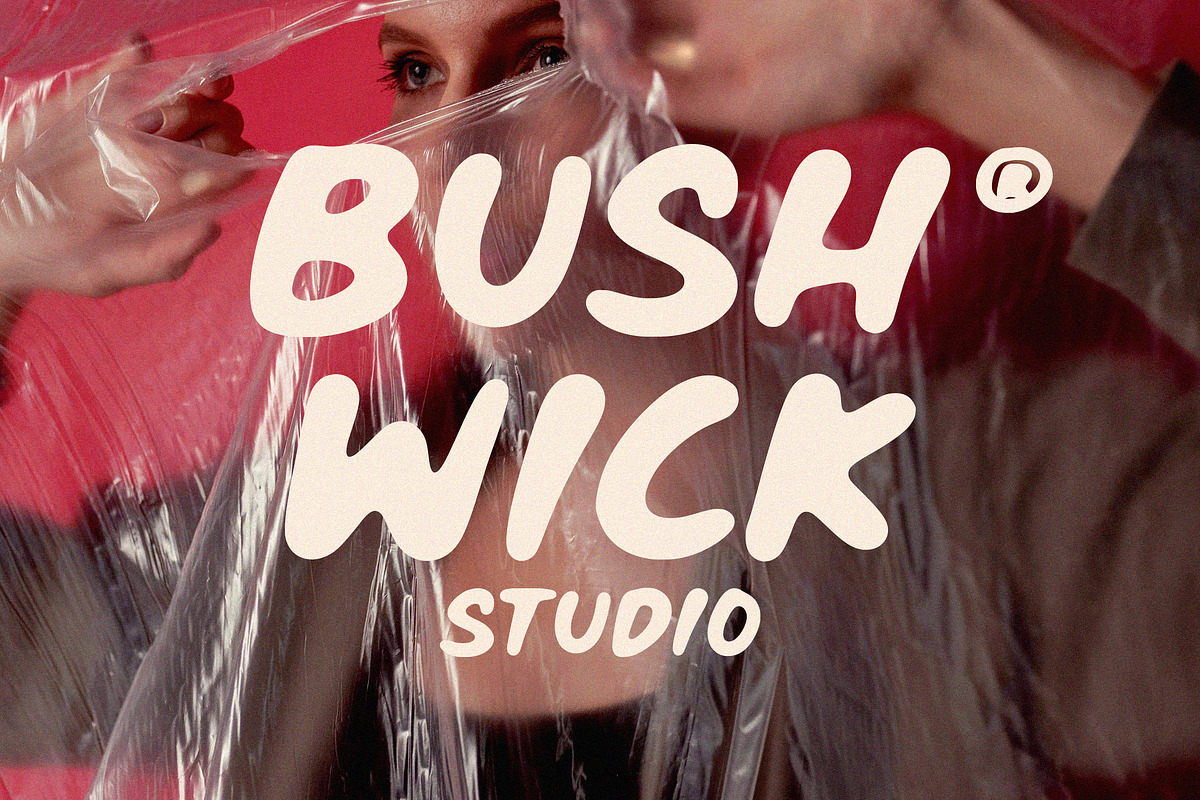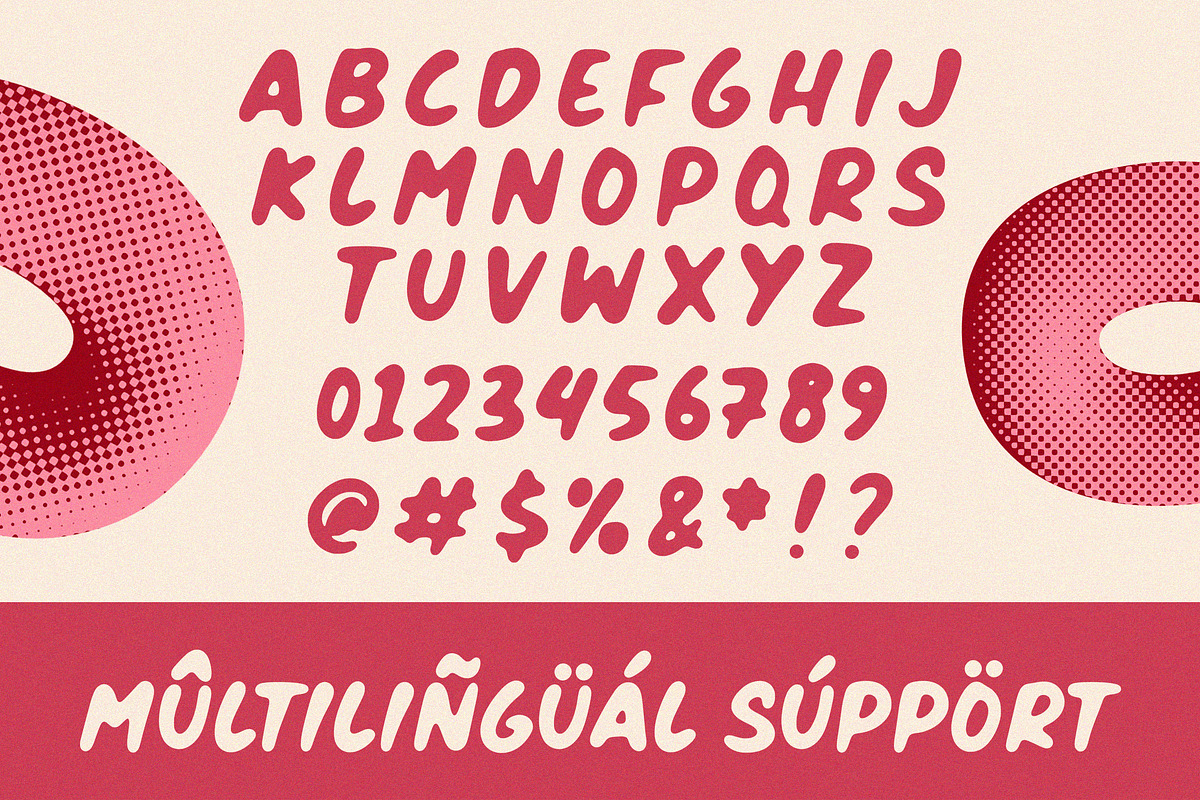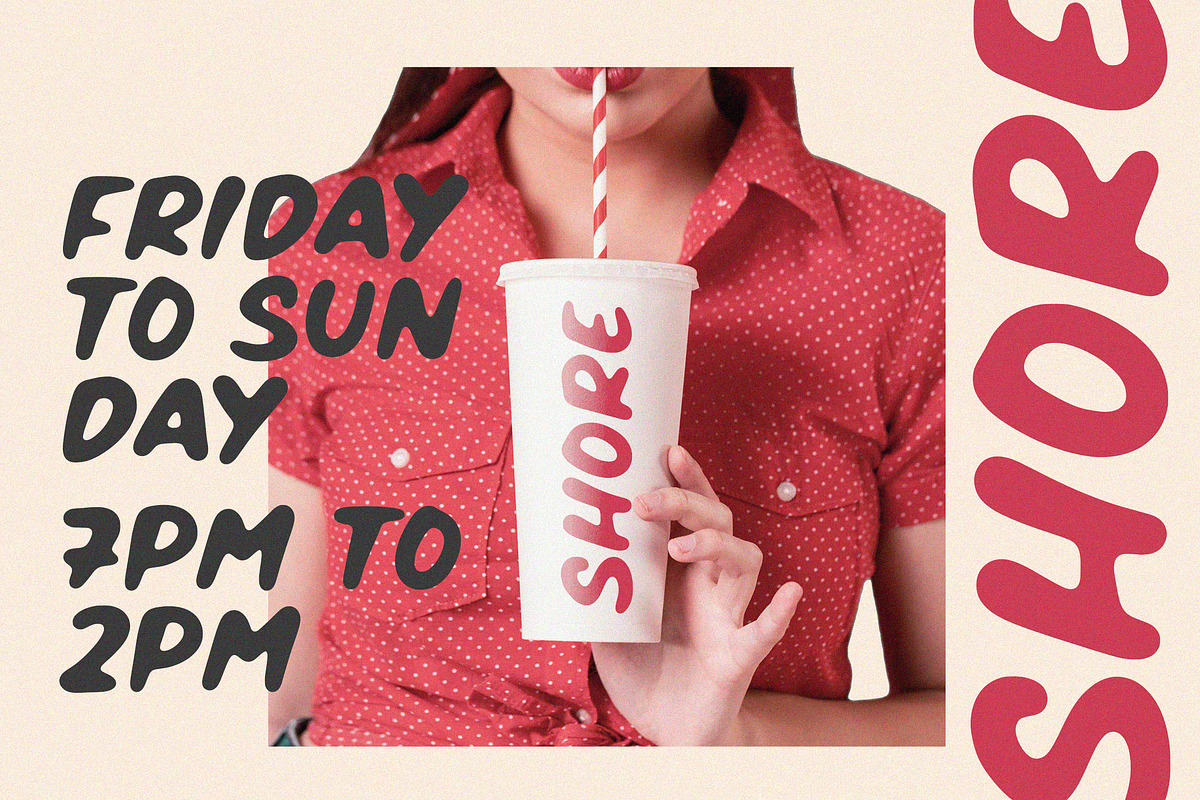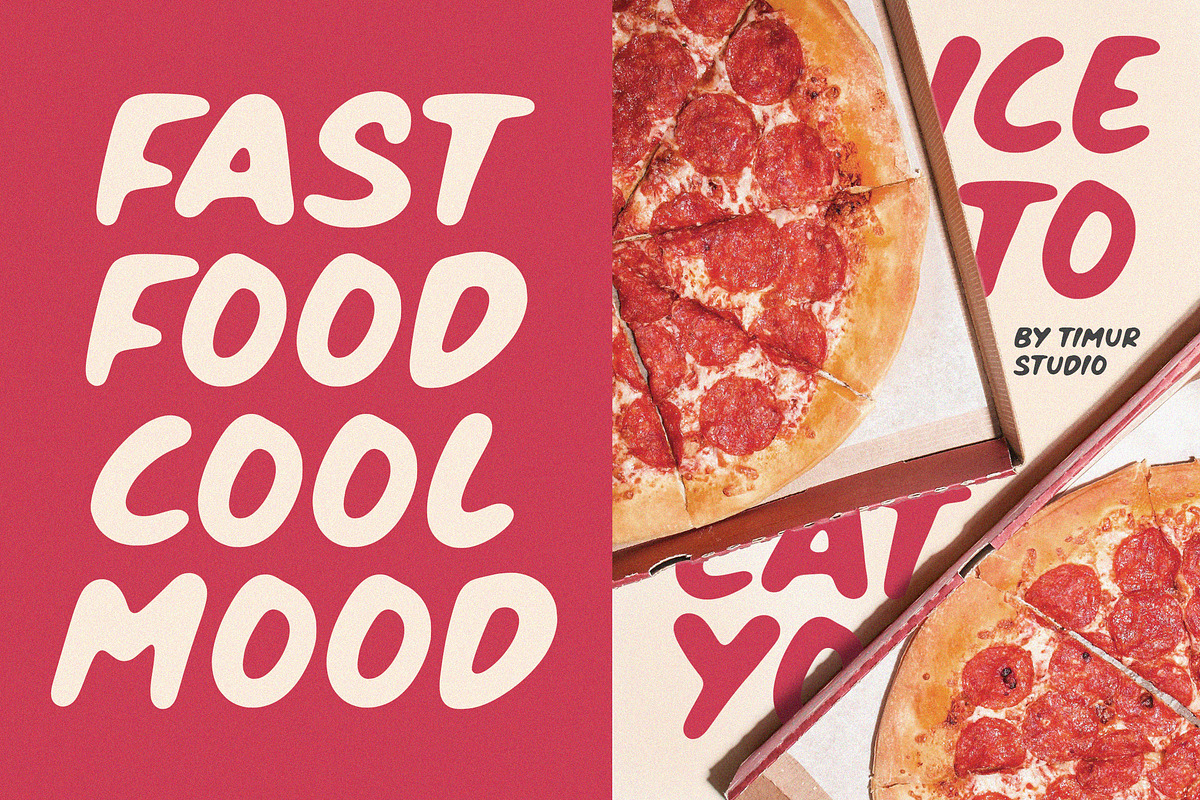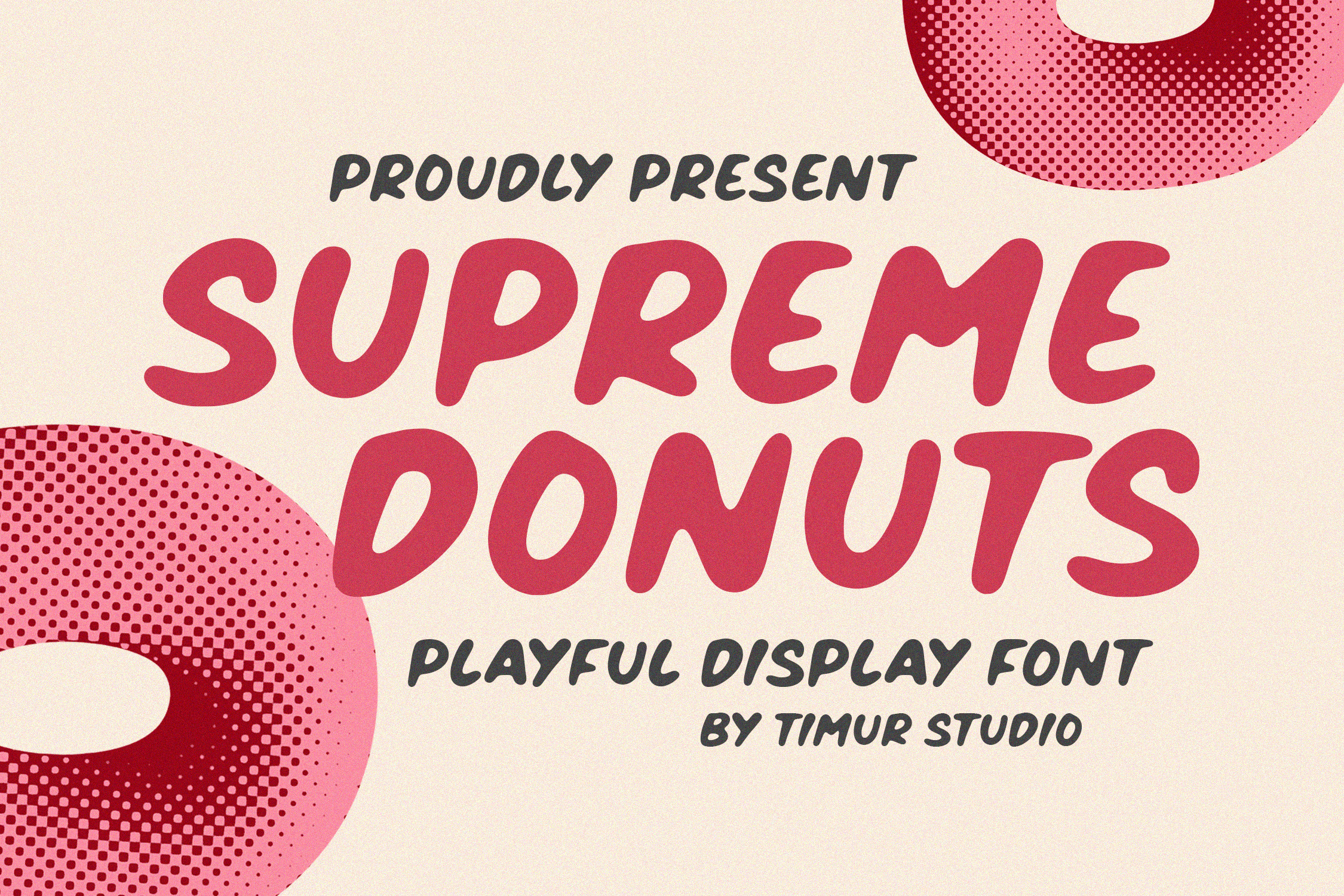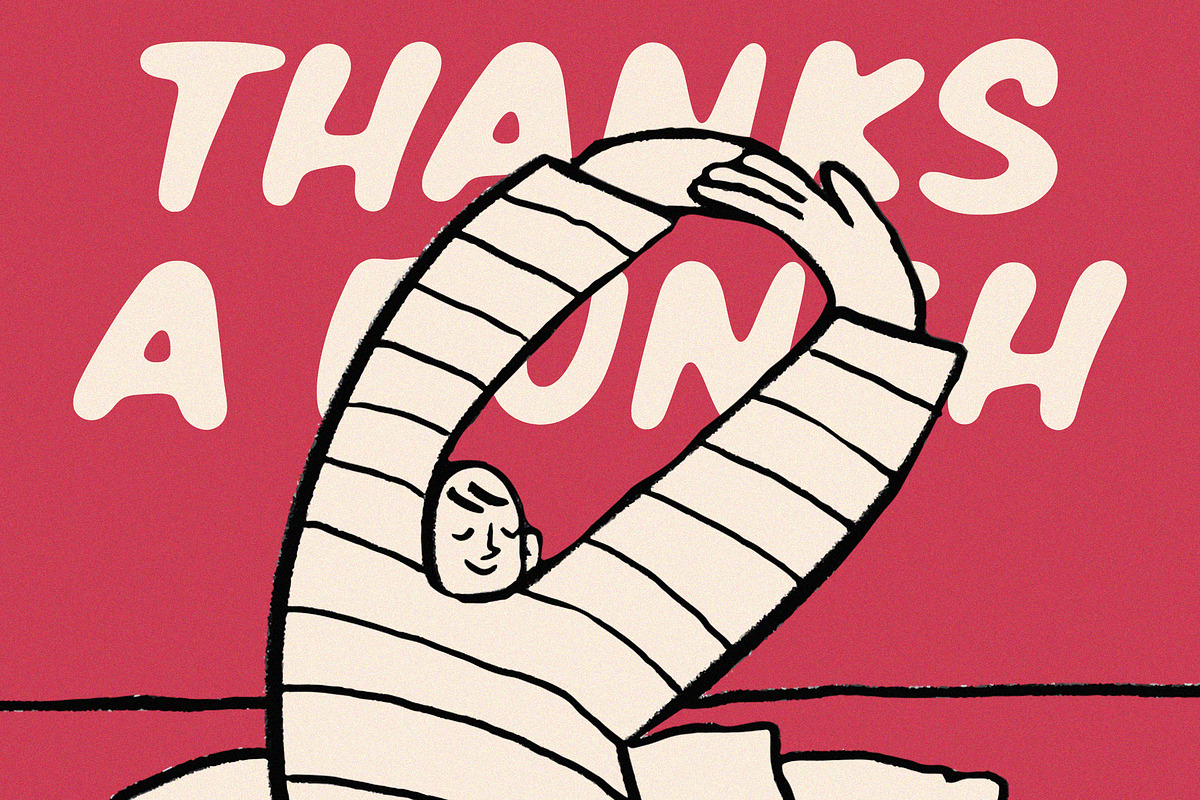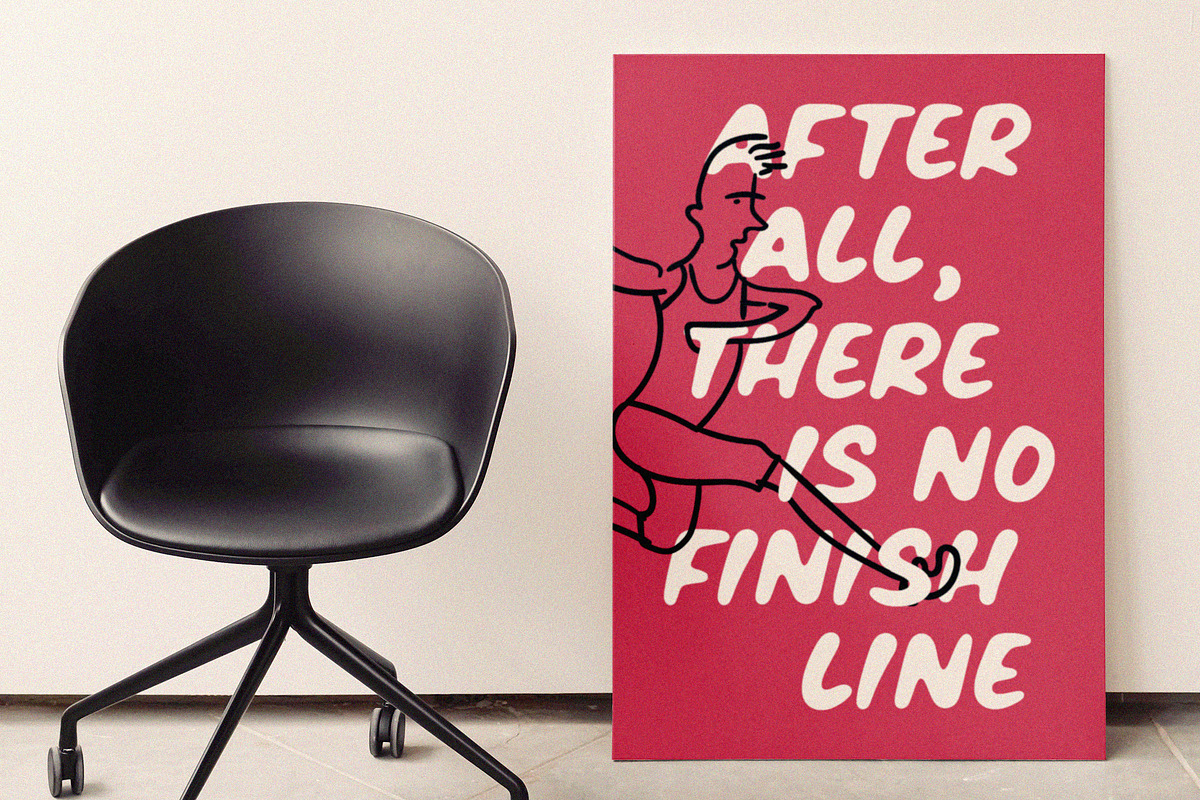
Supreme Donuts Font
Introduced by Timurtype Studio!
Supreme Donuts is a Playful Display Font
This font is a is a lively and whimsical display font with a sweet, bubbly charm. Its playful curves and bold, rounded forms evoke the delightful energy of a fun-filled bakery, making it perfect for branding, packaging, or designs that crave a dash of joy.
Supreme Donuts Font also supports multilingualism